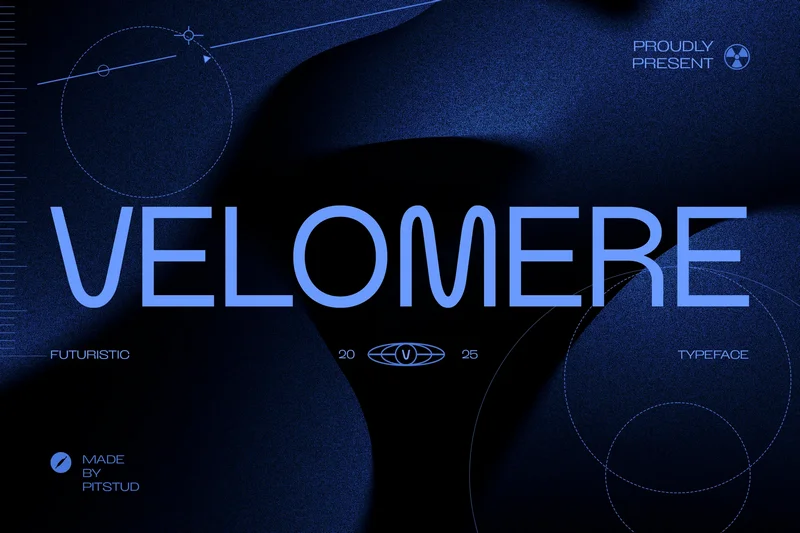
Velomere – Futuristic Decorative Sans Serif
Velomere – Decorative Sans Serif
Velomere – Decorative Sans Serif is a futuristic and decorative sans serif font designed to bring bold style, modern precision, and creative versatility to your projects. Featuring clean geometric lines with unique letterforms, Velomere delivers a sleek, innovative aesthetic perfect for standout branding and forward-thinking designs.
Perfect For Whether you’re working on a technology brand, editorial headline, or modern poster design, Velomere offers the perfect balance of readability and visual impact. Its structured forms and distinctive details make it ideal for logos, product packaging, advertising, website headers, and promotional materials.
Font Features
Futuristic & Stylish Design: Distinctive sans serif style for a contemporary edge.
Complete Character Set: Uppercase, lowercase, numbers, punctuation, symbols.
OpenType Features: Alternates, ligatures, stylistic sets.
Velomere combines modern innovation and decorative elegance to create a typeface that stands out while remaining functional. Whether for branding, advertising, or digital media, Velomere adapts effortlessly to elevate your designs.
Perfect For
Brand Identity: Give your business a bold, futuristic edge.
Advertising & Marketing: Command attention in campaigns.
Editorial Design: Create eye-catching magazine headlines.
Product Packaging: Enhance modern and tech-inspired products.
Logo Design: Establish a distinctive visual signature.